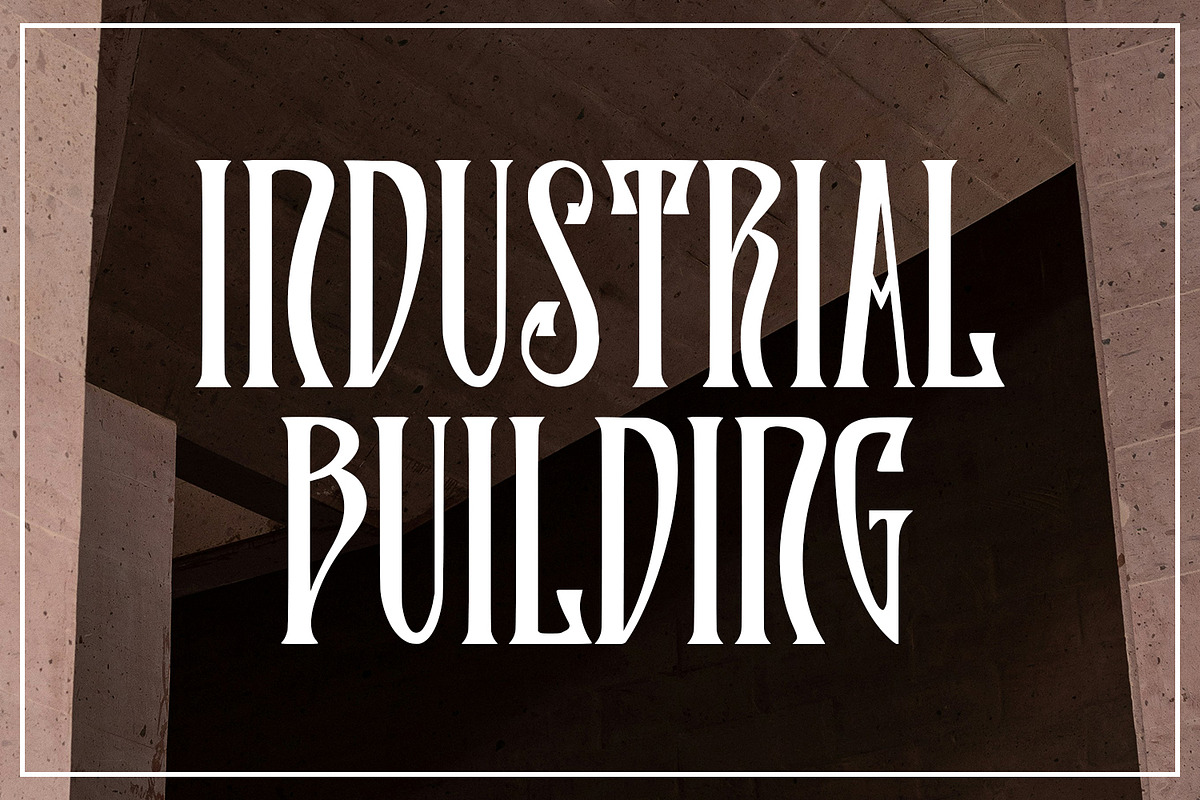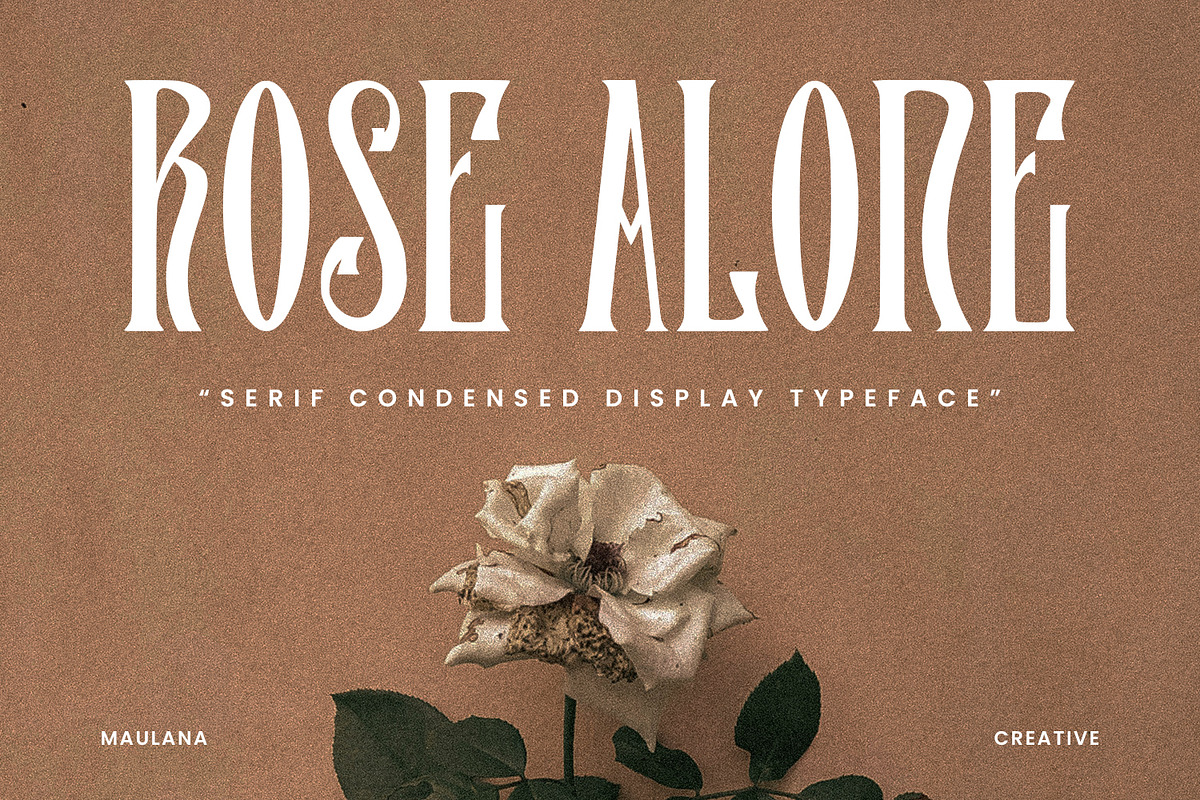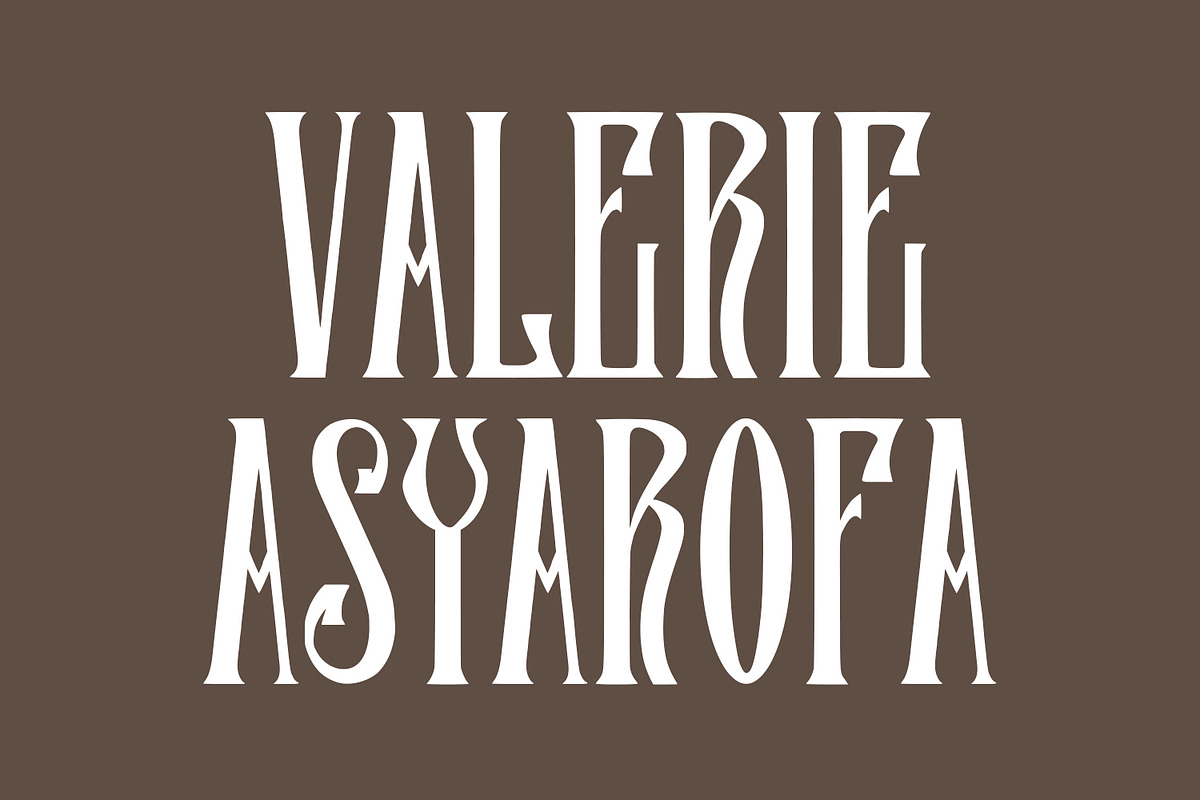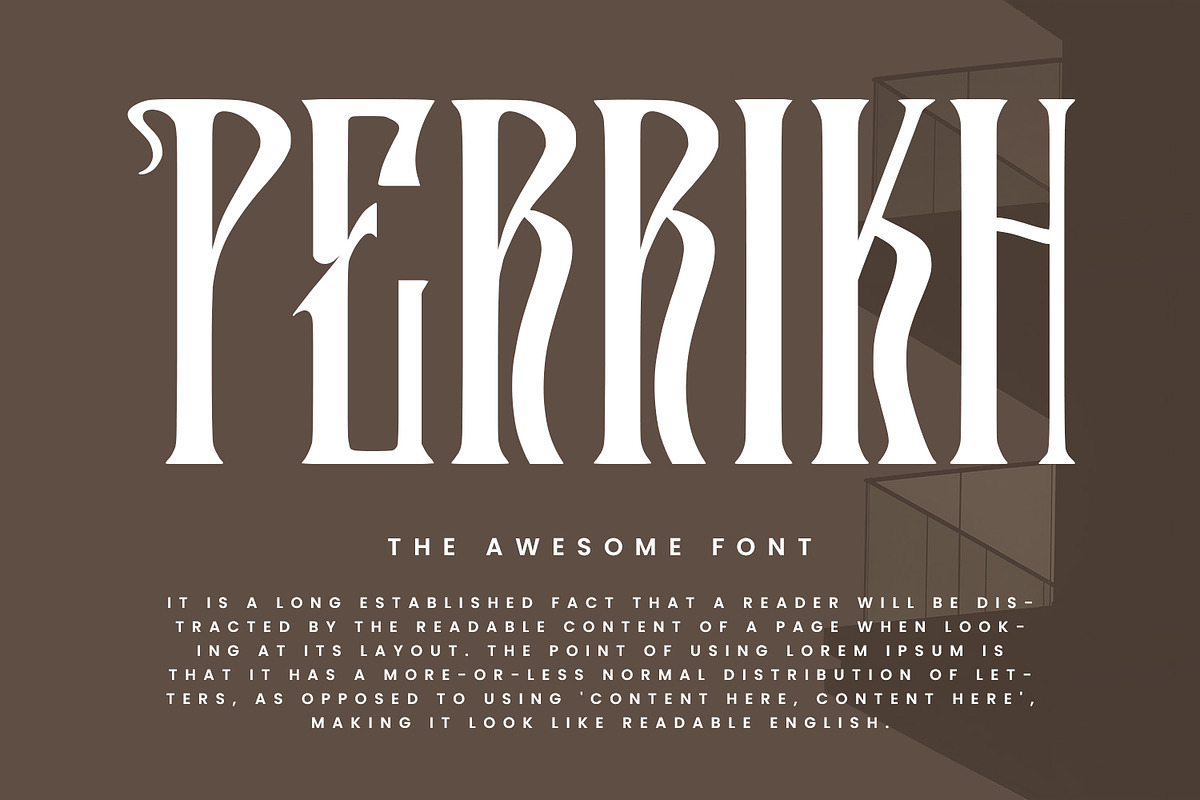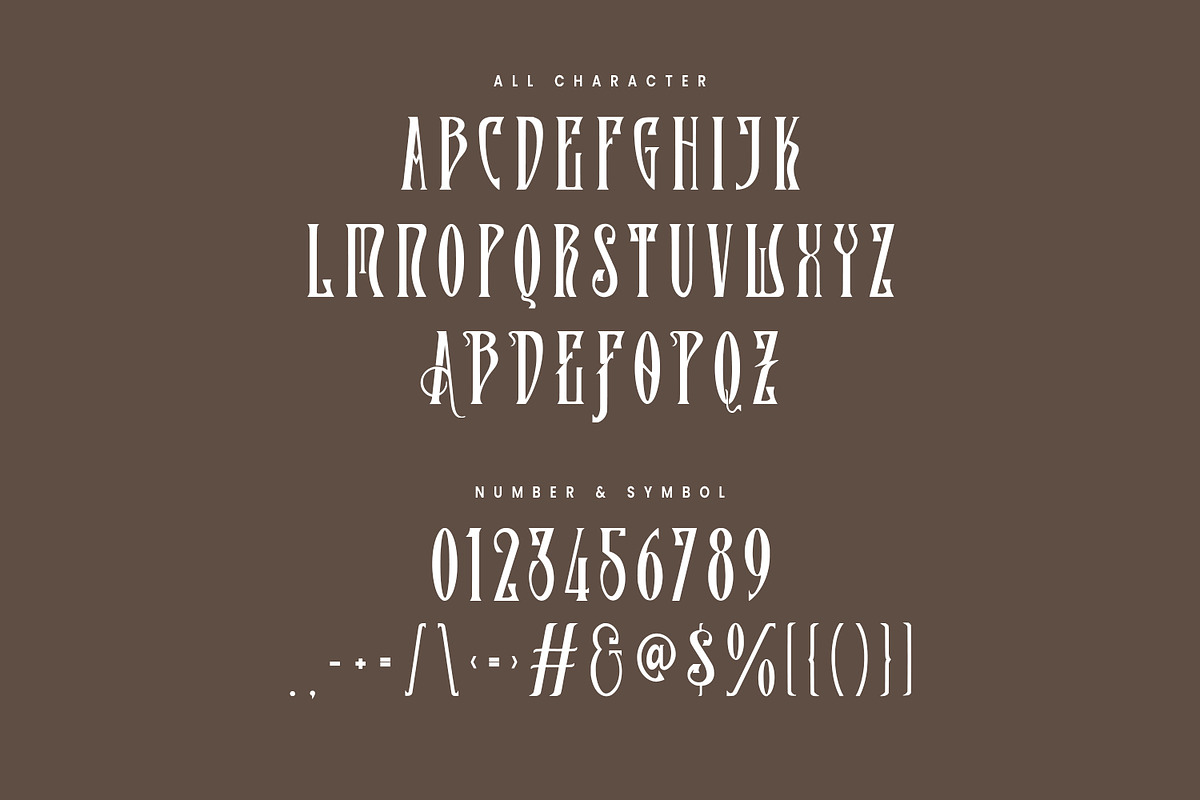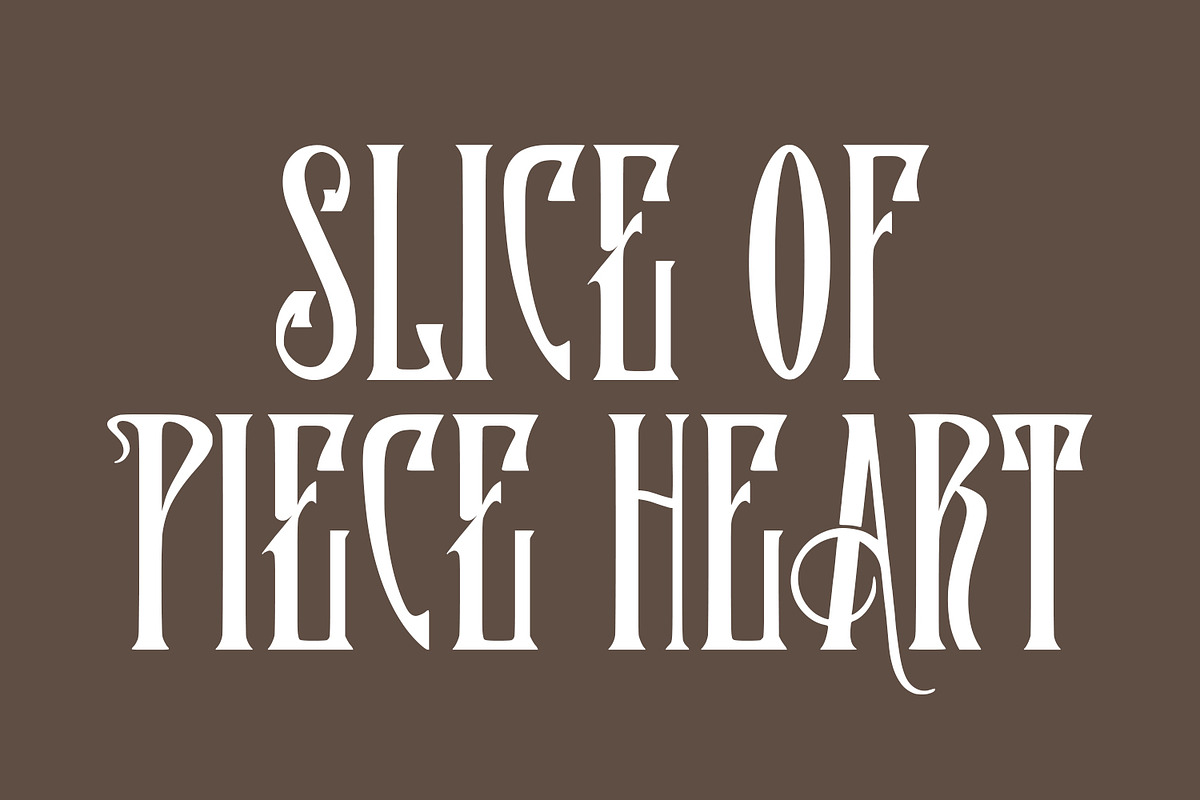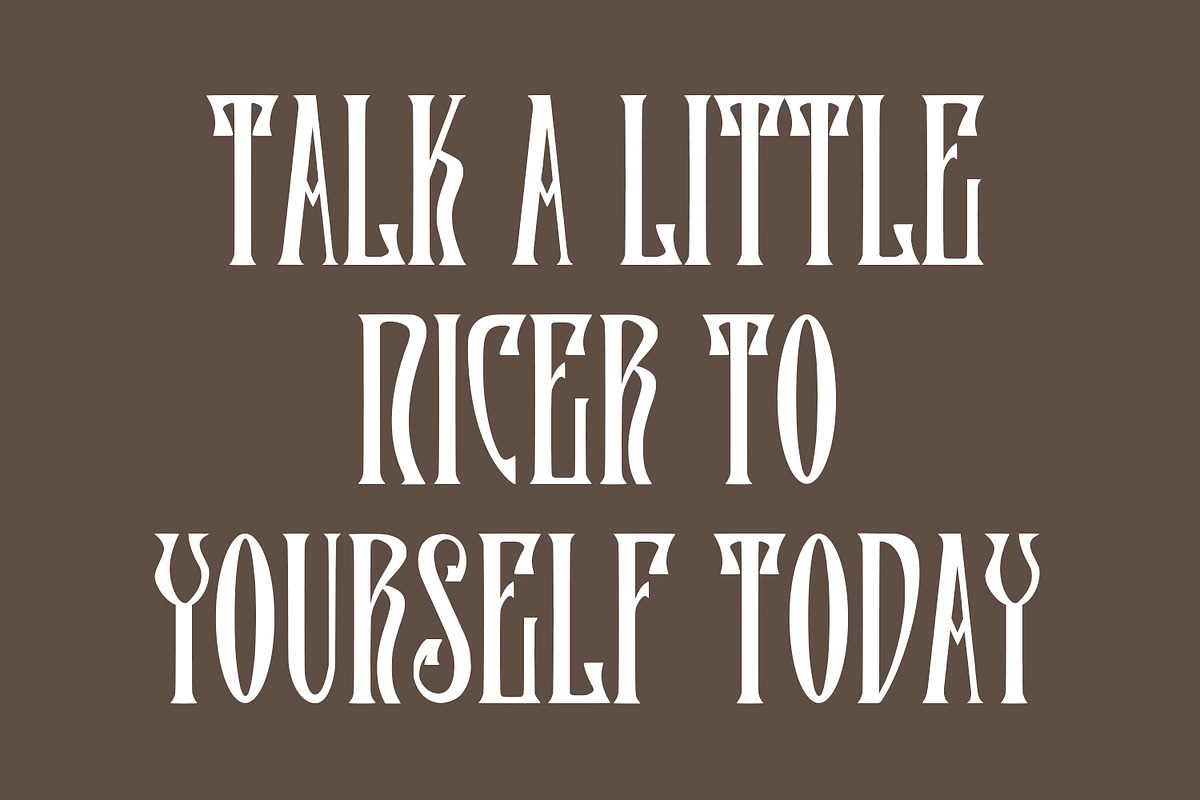
Rose Alone Serif Condensed Display
Rose Alone serif condensed display typeface. Heavy stroke, fun character with a bit of ligatures. To give you an extra creative work. Rose Alone serif condensed display typeface support multilingual more than 100+ language. This font is good for logo design, Social media, Movie Titles, Books Titles, a short text even a long text letter and good for your secondary text font with script or serif. Make a stunning work with Rose Alone serif condensed display typeface.